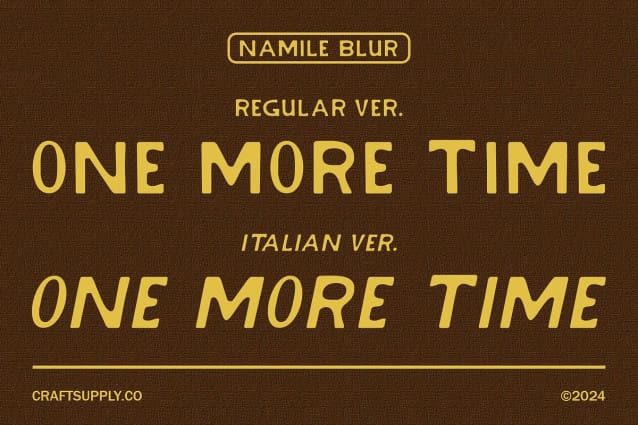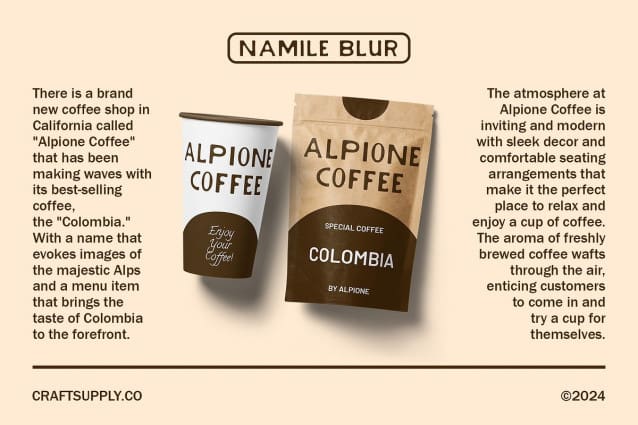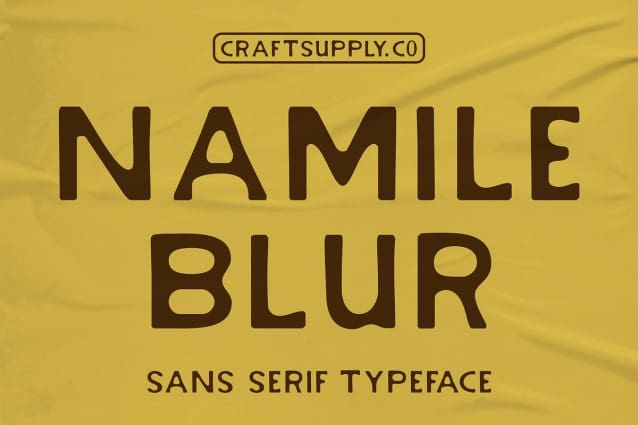
Namile Blur Font
Namile Blur Font is a distinctive sans serif font featuring a dynamic blur effect. Perfect for creating eye-catching displays, this font adds a sense of movement and creativity to your designs, making them stand out.
With its clean lines and unique blur effect, Namile Blur offers a modern twist on traditional sans serif fonts. The blur effect gives the font a sense of depth and energy, ideal for posters, digital media, and other projects that need a striking and contemporary look.
Whether you’re designing a flyer for a cutting-edge event or creating a headline for an innovative campaign, Namile Blur is sure to capture attention. Its sleek design and blur effect make it perfect for displays that demand notice and convey a sense of motion.
Despite its unique appearance, Namile Blur is versatile and easy to use. The font works well in both large and small sizes, making it suitable for a variety of applications, from headlines and banners to logos and more. With its combination of modern design and blur effect, Namile Blur adds a captivating and energetic touch to any design.